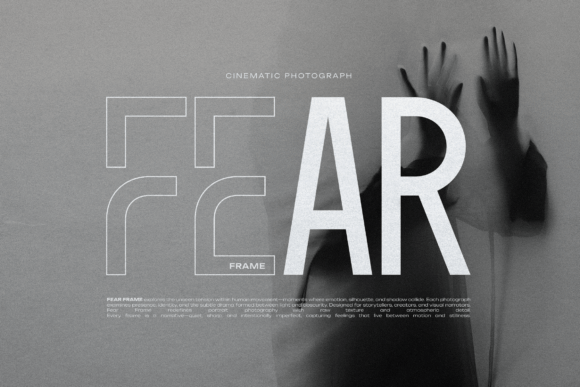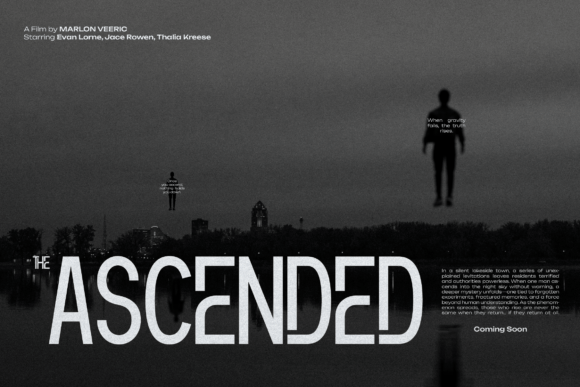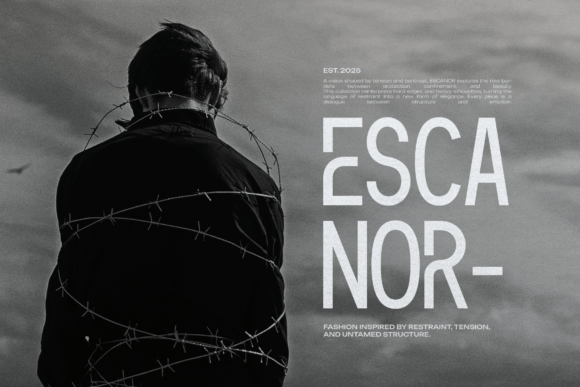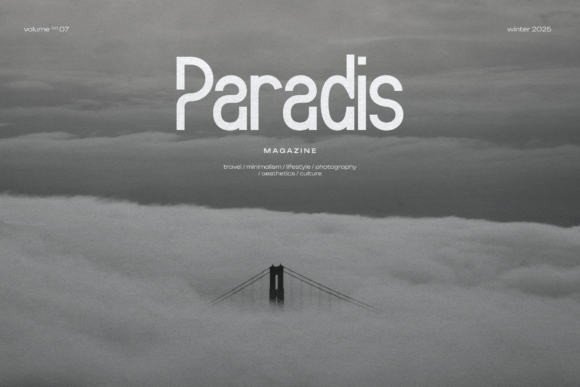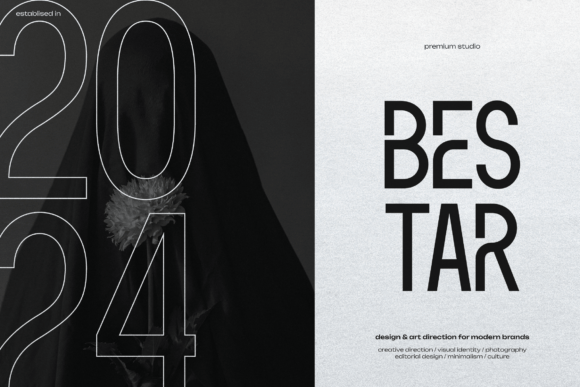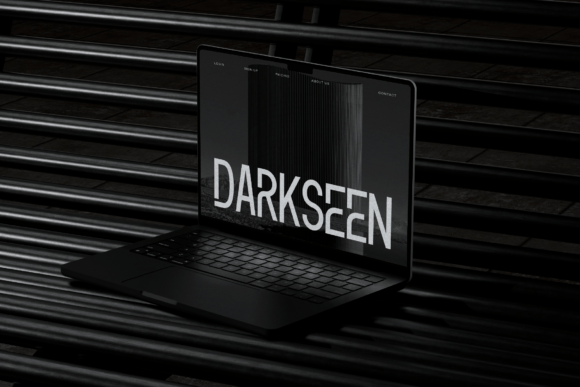
Introducing Feaqsta Font: The Ultra-Modern Display Sans Serif for High-Impact Visual Statements
In the world of typography, a new font has emerged that is set to revolutionize the way we approach high-impact visual statements. Meet Feaqsta, an ultra-modern display sans serif that combines clean, geometric lines with bold, conceptual letterforms. This striking typeface is designed to make a lasting impression, making it perfect for projects that demand a minimalist yet unforgettable aesthetic.
A Distinct, Luxurious, and Future-Forward Personality
Feaqsta’s unique design features striking, unusual cuts and alternates that give it a distinct, luxurious, and future-forward personality. Take, for example, the unique opening of the ‘F’ and ‘R’, which sets it apart from other fonts in its class. These distinctive elements make Feaqsta a standout choice for designers looking to create high-end fashion branding, editorial design, luxury packaging, album art, and contemporary website headers.
Perfect for High-End Projects
Feaqsta is specifically designed for high-end projects that require a sophisticated and creative approach. Its clean, geometric lines and bold letterforms make it an ideal choice for:
- High-end fashion branding: Create stunning logos, advertisements, and marketing materials that exude luxury and sophistication.
- Editorial design: Elevate your magazine and newspaper designs with Feaqsta’s unique and captivating style.
- Luxury packaging: Make a lasting impression with Feaqsta’s bold and eye-catching typography on product packaging.
- Album art: Give your music releases a professional and high-end look with Feaqsta’s striking typography.
- Contemporary website headers: Create a lasting impression with Feaqsta’s bold and modern typography on your website.
Feaqsta offers a range of features that make it a versatile and practical choice for designers. The font comes in a regular version, perfect for ensuring clarity and legibility, as well as ligatures and alternates for adding an extra layer of sophistication and creativity to your designs.
PUA-Encoded for Effortless Access
Why Choose Feaqsta?
So, why choose Feaqsta for your next design project? Here are just a few reasons:
- Unique and distinctive design: Feaqsta’s striking, unusual cuts and alternates make it a standout choice for designers.
- Luxurious and sophisticated feel: Feaqsta’s clean, geometric lines and bold letterforms evoke a sense of luxury and sophistication.
- Versatile and practical: Feaqsta comes in a range of features, including a regular version, ligatures, and alternates.